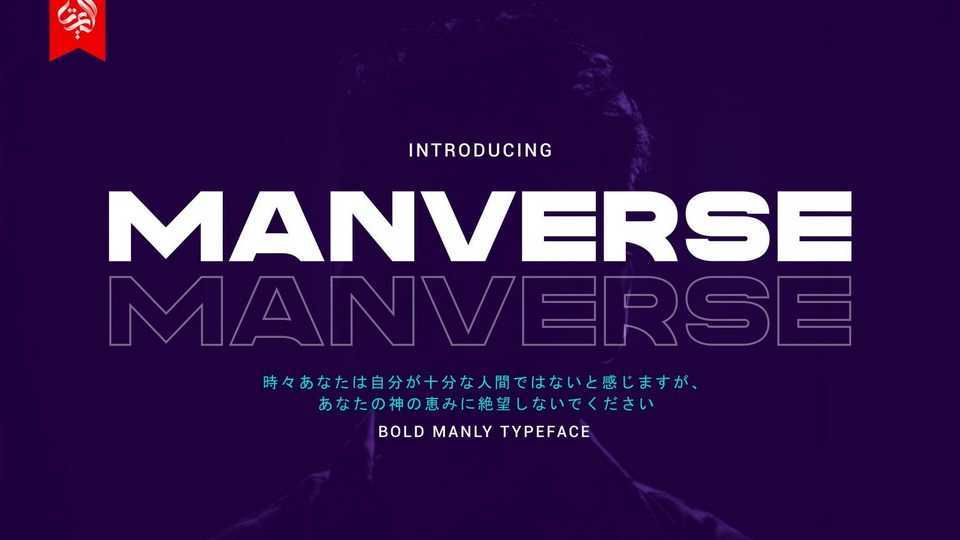
Download Manverse font, a bold manly typeface inspired by the things that make up the world of men. With a solid, strong, and firm vibe, Manverse font is perfect for loud headlines and posters.